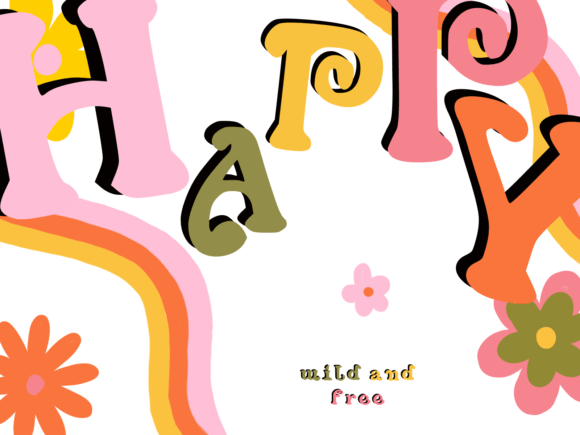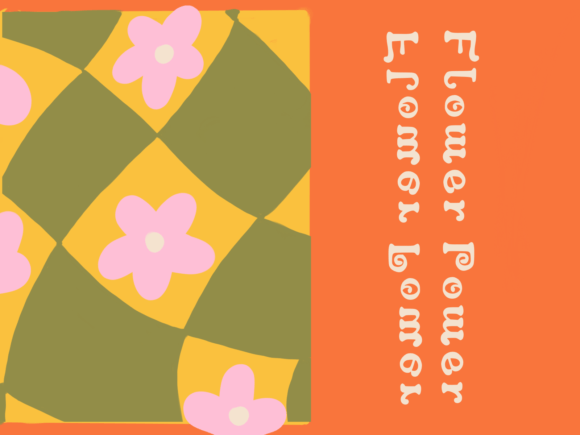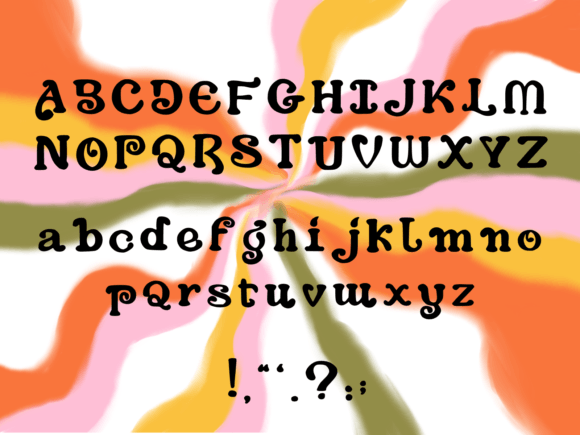
Introduction to Retro Land Font
Do you remember the first time you saw a vintage poster that caught your eye and made you feel like stepping back in time? For designers, that’s exactly the kind of creative spark that makes a project truly special. And that’s where the Retro Land Font comes in – a stylish and playful retro display font that’s perfect for adding a touch of nostalgia to your design.
With its versatility and high-quality design, the Retro Land Font is a valuable addition to any designer’s toolkit. Whether you’re working on a greeting card, a headline, or any other creative project, this font will give your design an exquisite feel that’s sure to grab attention. And the best part? It’s a free download, making it an accessible design resource for designers of all levels.
From its transparent background to its stylish lettering, the Retro Land Font is a must-have for any designer looking to add a touch of retro charm to their work. So why settle for a generic font when you can have a high-quality design resource like the Retro Land Font that will make your projects truly stand out?
Key Features of Retro Land Font
- High-quality design resource with a unique, nostalgic aesthetic perfect for creative projects.
- Transparent background, allowing for seamless integration with any design element or image.
- Pixel-perfect resolution of 1024 x 1024 pixels, ensuring crisp and clear typography in both digital and print applications.
- 8 styles, including regular, bold, italic, and bold italic, providing versatility for different design needs.
- Designed to evoke a sense of nostalgia and retro charm, making it an ideal choice for projects that require a vintage or classic feel.
- Perfect for use in graphic design, branding, advertising, and other creative projects where a unique and eye-catching font is required.
Honest Review: Retro Land Font
I recently had the chance to work with the Retro Land Font, and I must say, it’s a solid addition to any designer’s toolkit. As a creative project, it’s perfect for those looking to add a nostalgic touch to their designs.
One of the standout features of the Retro Land Font is its high quality and versatility. The font is available in a range of weights and styles, making it easy to use in a variety of design contexts. I particularly appreciated the transparent background, which made it easy to overlay the font on top of other design elements.
- High quality and versatile design
- Available in a range of weights and styles
- Transparent background for easy overlay
Overall, I was impressed with the Retro Land Font. It’s a great choice for designers looking to add a touch of retro charm to their creative projects. With its high quality design and versatility, it’s a solid addition to any design resource library.
- Limited character set may require additional font pairing
- Not ideal for complex typography or long-form text
While the Retro Land Font has its limitations, I believe it’s a great choice for designers who want to add a touch of nostalgia to their designs. With a little creativity and font pairing, you can achieve some truly unique and eye-catching results.
The Retro Land Font is ideal for various creative projects, including graphic design, digital art, and branding. It’s perfect for creating retro-themed designs, posters, and flyers. You can also use it to add a touch of nostalgia to your designs.